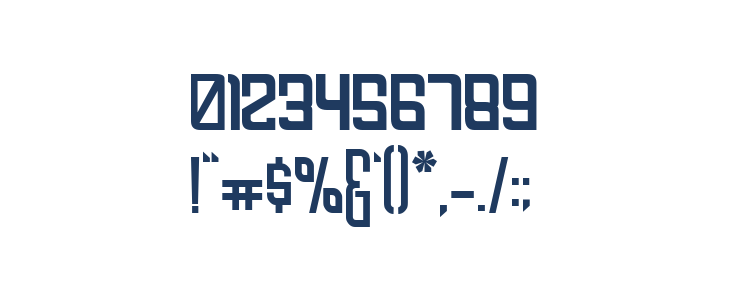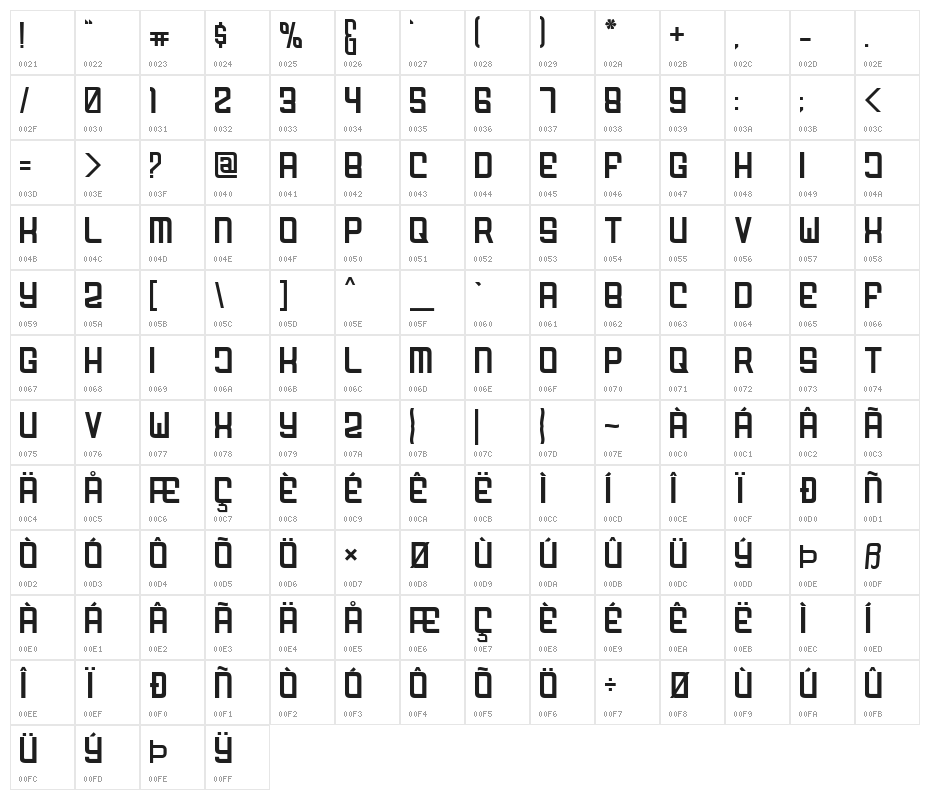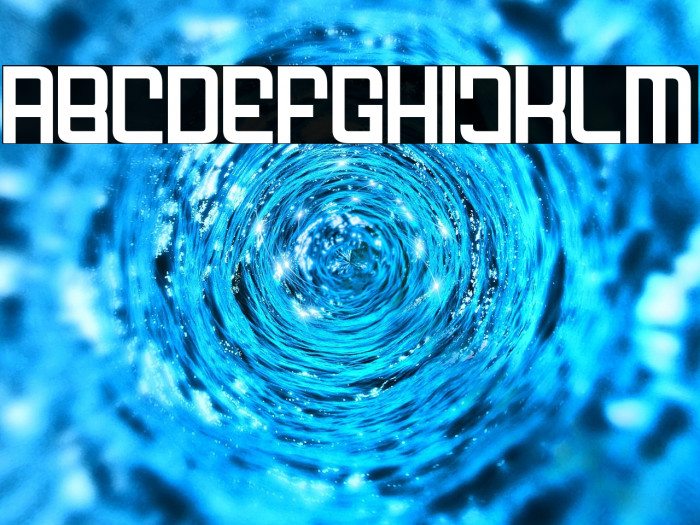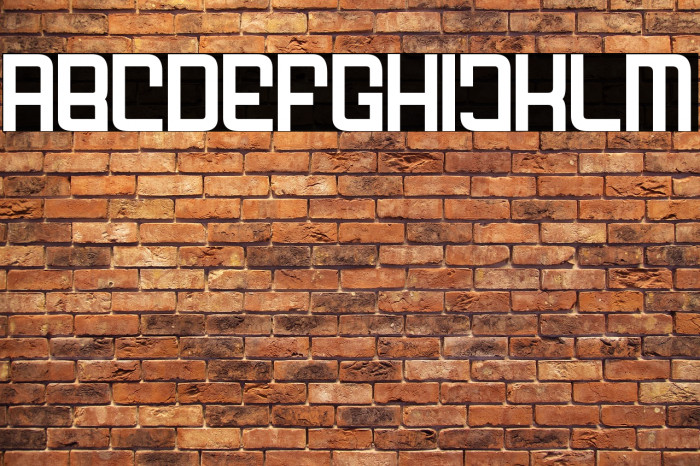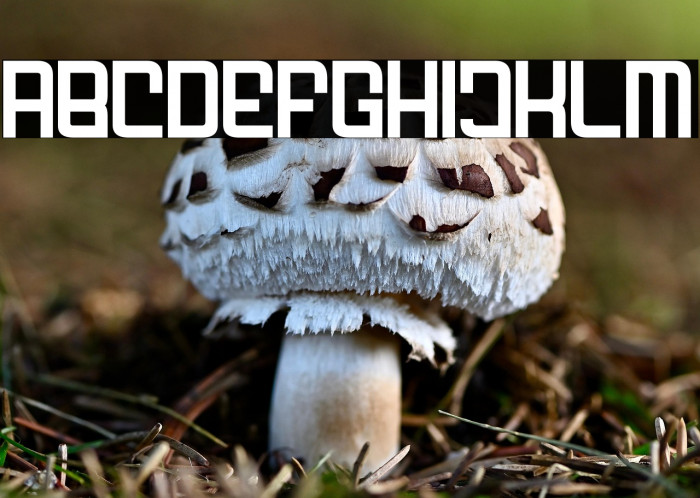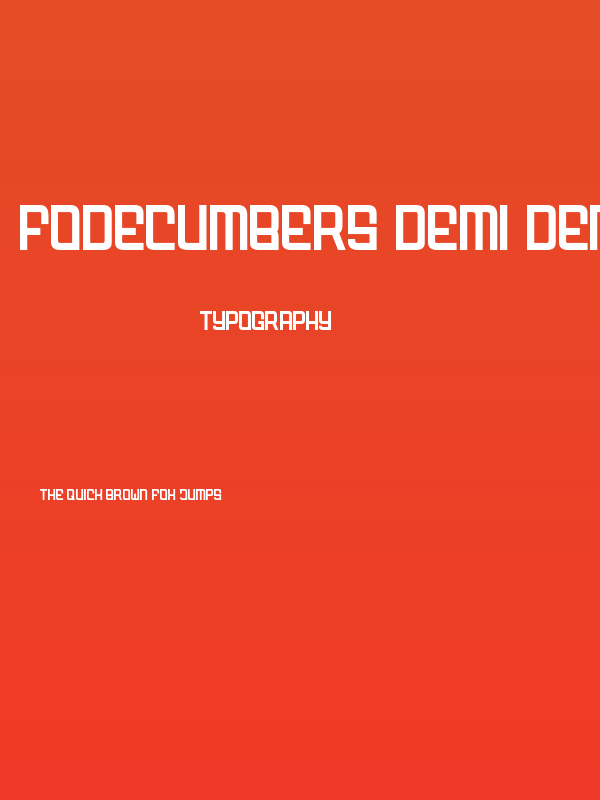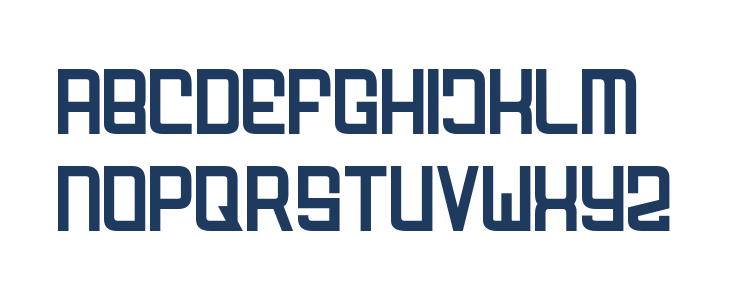
FODECUMBERS DEMI DEMI Font
FODECUMBERS DEMI DEMI Description
This font exhibits a bold and geometric style with a strong presence. The characters are constructed with uniform stroke widths, creating a cohesive and structured appearance. The uppercase letters are particularly striking, featuring sharp angles and a modern aesthetic. The numerals and special characters maintain the same boldness, ensuring consistency across all glyphs. This font's design is both functional and visually appealing, making it suitable for a variety of applications where a strong, modern look is desired.